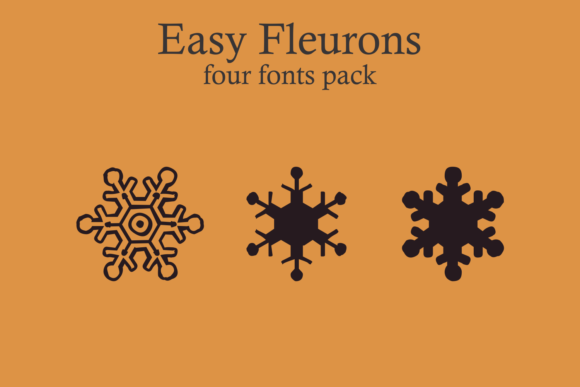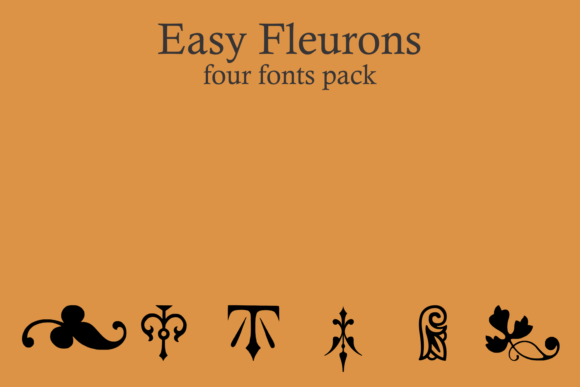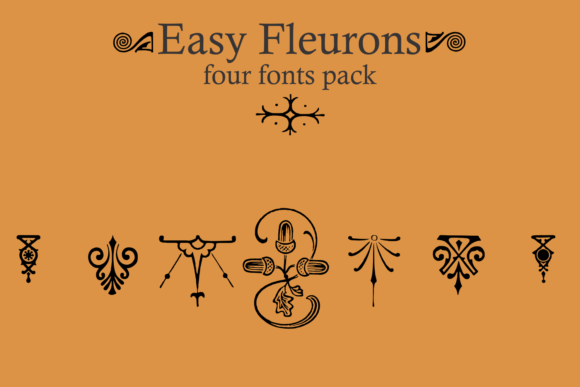
About Easy Fleurons Font
The Easy Fleurons collection is a set of highly decorative elements that possess a unique blend of intricacy and versatility. These fleurons are designed to add captivating and interesting details to a wide range of designs, making them suitable for various applications such as invitations, greeting cards, book jackets, labels, and even fabric designs.
What sets the Easy Fleurons collection apart is its ability to seamlessly complement and enhance different design projects. The decorative nature of these elements adds a touch of sophistication and visual interest, elevating the overall aesthetic of your designs.
Whether you’re working on formal invitations for a special event or creating eye-catching labels for products, the Easy Fleurons collection provides a vast array of decorative options to choose from. These elements serve as beautiful embellishments that can transform ordinary designs into extraordinary ones.
One of the strengths of the Easy Fleurons collection is its versatility. The elements are intentionally designed to be generic enough to fit into a wide range of design themes and styles. This allows you to incorporate them into various projects without sacrificing their visual impact or cohesiveness with the overall design concept.
Additionally, the Easy Fleurons collection offers a diverse selection of fleurons, giving you ample choices to experiment with different compositions and arrangements. You can mix and match the elements, layer them, or combine them with other design elements to create unique and visually captivating designs that suit your specific needs.
Whether you’re working on digital designs or physical materials like fabric, the Easy Fleurons collection provides an excellent resource for adding that extra touch of detail and charm. The intricacy and decorative quality of these elements make them suitable for both digital and print applications, allowing you to achieve stunning results across different mediums.
In summary, the Easy Fleurons collection is a versatile and highly decorative set of elements that can enhance a wide range of design projects. From invitations and greeting cards to book jackets, labels, and fabric designs, these fleurons add interesting details that elevate the overall aesthetic of your designs. With their generic yet captivating nature, the Easy Fleurons collection provides endless creative possibilities to make your designs visually appealing and captivating.